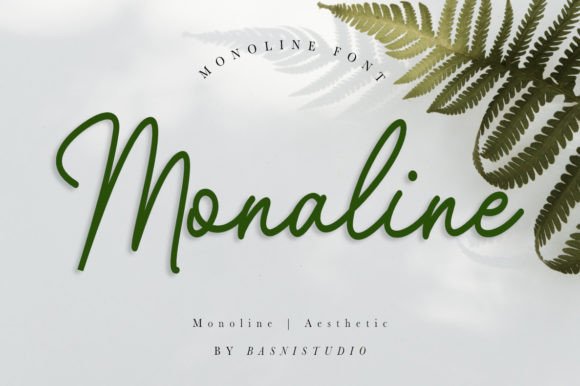
Meet Monaline, the extraordinary font family that will transform your designs into captivating masterpieces. Its natural, aesthetic, and modern monoline style, crafted with meticulous precision, adds a touch of elegance and sophistication to every project. Whether you're a fashion blogger, a creative designer, or an entrepreneur looking to make a lasting impression, Monaline is the perfect choice for you.
Immerse yourself in the world of Monaline and discover its endless possibilities. From the delicate curves of its characters to the subtle nuances that bring each letter to life, this font family exudes charm and personality. Say goodbye to ordinary typography and embrace the extraordinary with Monaline.
With Monaline, you can effortlessly create designs that resonate with your audience. Its versatility knows no bounds, making it perfect for branding, websites, design invitations, editorial designs, social media posts, t-shirts, logos, and print designs. Unleash your creativity and let Monaline elevate your designs to new heights.
Don't settle for ordinary fonts that blend into the background. Choose Monaline, the font family that stands out from the crowd. Its unique style and charm will captivate your audience and leave a lasting impression.